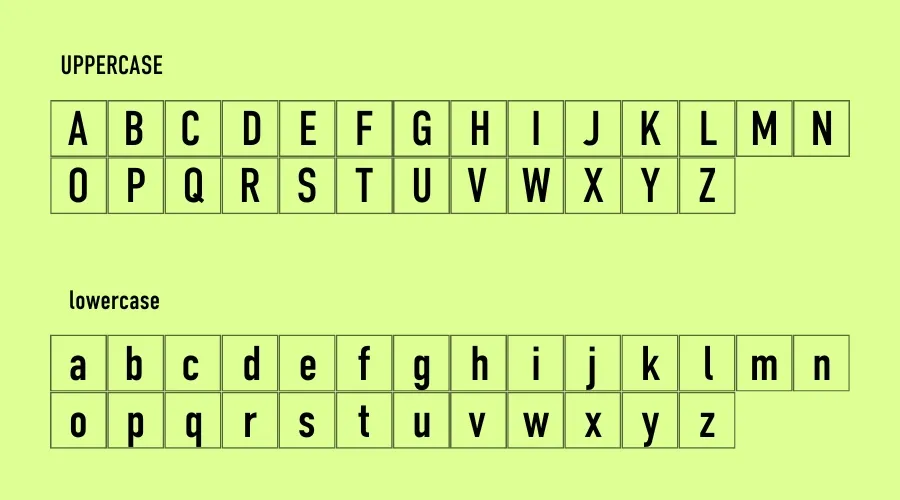
About Pt Din Condensed Cyrillic Font
Pt Din Condensed Cyrillic Font is created by Tagir Safayev. Text style that’s free version is available. There are 498 characters in each style.
This typeface can be used in combination with improving the project design. For instance, you can combine this font with a plain font.
This typeface comes in beautiful weights that may be used to create a variety of designs. This typeface’s TTF file has 264 glyphs with 1024 units per em resolution.
Basic Latin, Phonetic Extensions, spacing modification in Letters, numeric forms, generalized punctuation marks, and Symbols all are included in their characters. Numerous foreign languages, including Greek, Zulu, French, and Indian, are supported by this font.
Any game-related design will look great by using this typeface. This text style will bring a spark of energy and add fun to your project, whether you are developing a new brand for a blog site or making a poster for an online game.
Making invitations and decor using this typeface is also a great idea. This typeface will enable you to add a touch of glamour and passion to your event if it is themed after a party.
This entertaining typeface is ideal for any report writing design because it includes all the traditional symbols that are needed for content design. The typeface will bring a bit of energy and fun to your project, whether you’re designing a new symbol for a gaming site or making a banner for a table games event.
Pt Din Condensed Cyrillic Font View
Name | Pt Din Condensed Cyrillic Font |
Designer | Tagir Safayev |
Style | Sans Serif |
Is Pt Din Condensed Cyrillic Typeface Good for headlines?
Yes, the text style is amazing for headlines because it has great readability from the distance.
What is the type of Pt Din Condensed Cyrillic Typeface?
It is a contemporary sans serif font family. There are 498 characters in each style.
Who created Pt Din Condensed Cyrillic Typeface?
This beautiful design was created by the talented designer Tagir Safayev.